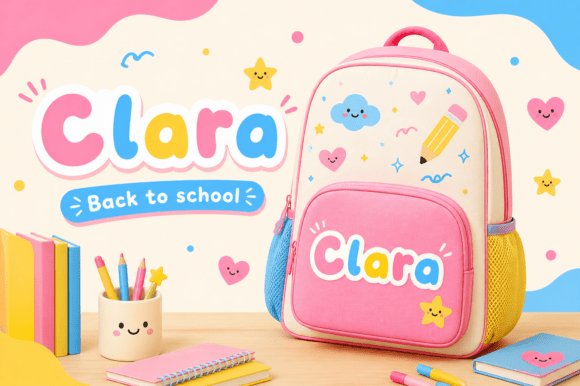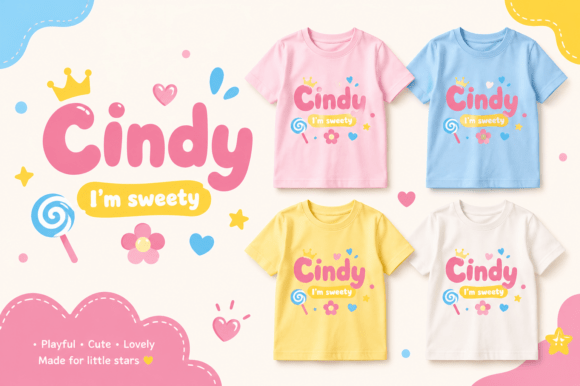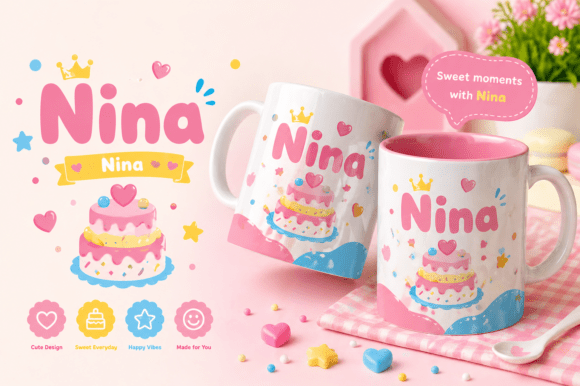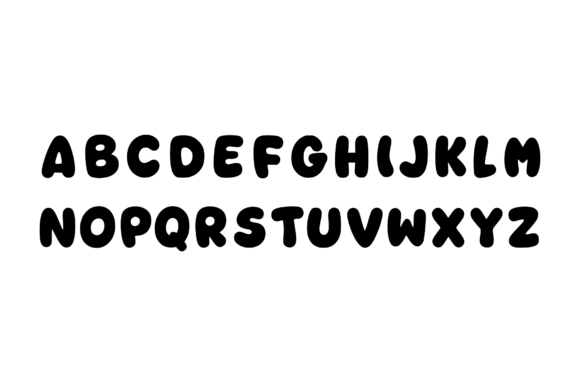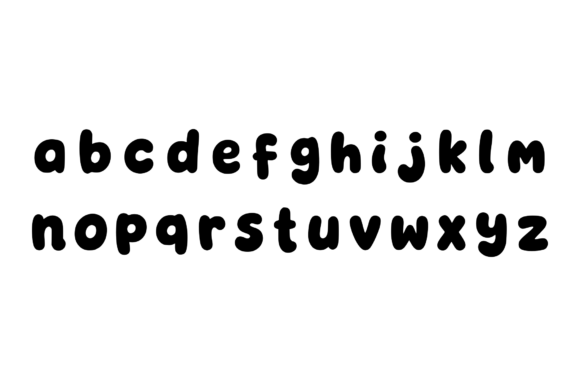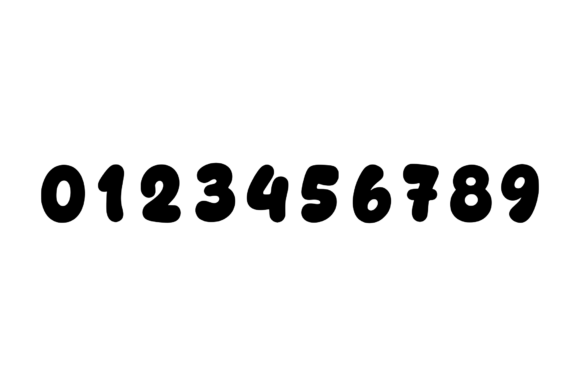
Introduction to Mochify Font
Introducing “Mochify,” an exuberantly playful display font that breathes life into your designs with its bubbly, friendly aura.
Like its namesake, it boasts squishy, lightweight textures that echo the softness of mochi or marshmallows, instantly radiating a joyous, approachable vibe “Mochify” uniquely features inflated, organic forms that are charmingly chubby, delivering a sense of warmth and friendliness that immediately captivates.